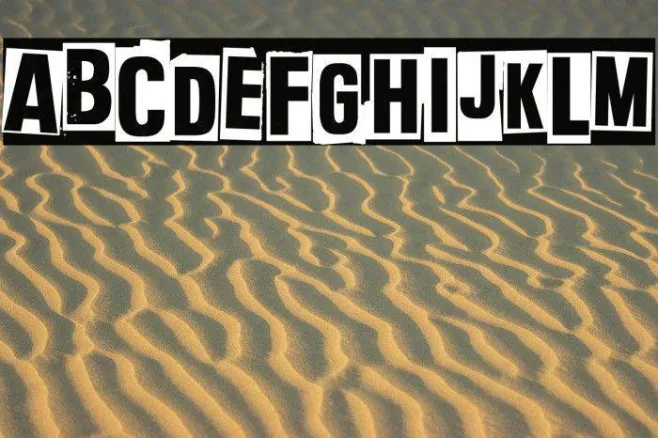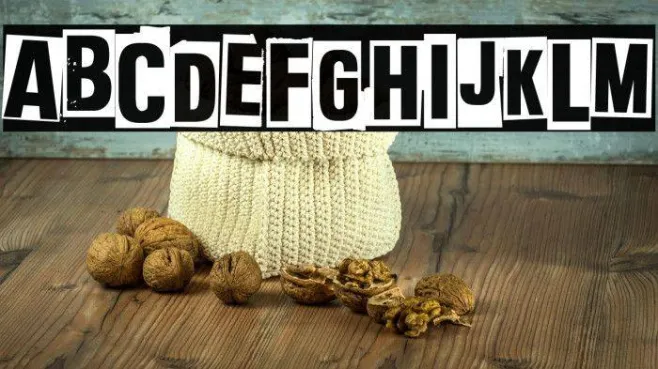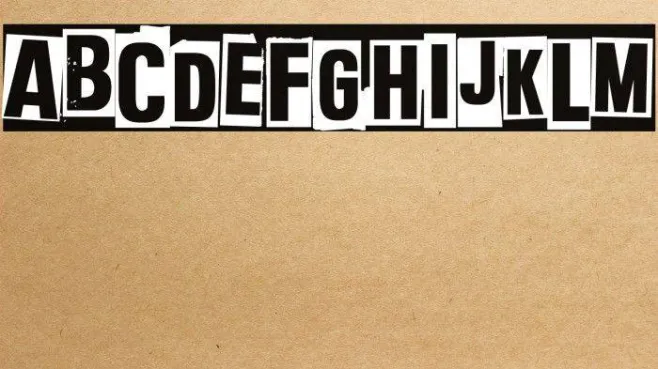
23 seconds to midnight Font
23 seconds to midnight Description
This font features a bold, distressed style with each character appearing as if cut from a magazine or newspaper. The letters are set against a black background, creating a high-contrast look that is both striking and edgy. The uneven edges and varying sizes of the characters give it a chaotic, ransom-note aesthetic. This design choice makes it ideal for projects that require a sense of urgency or rebellion. The font includes a full set of uppercase and lowercase letters, numbers, and a variety of special characters, all maintaining the same rugged and bold appearance.
| Overall Style | Edgy, Chaotic, Distressed |
| Use Case | Headlines, Posters, Album Covers |
| Proposed Projects | Ideal for album covers, posters, protest art, or any design needing a rebellious or urgent feel. |